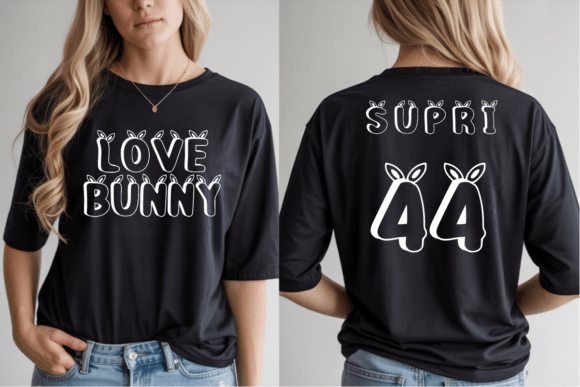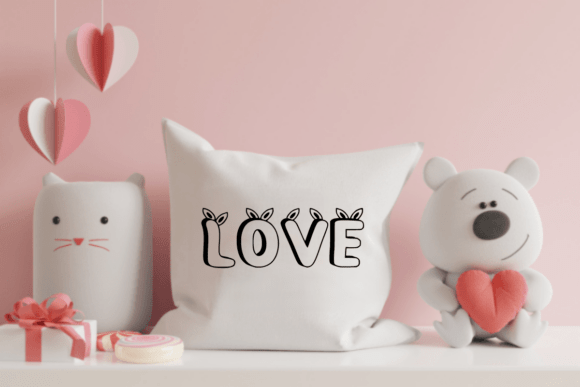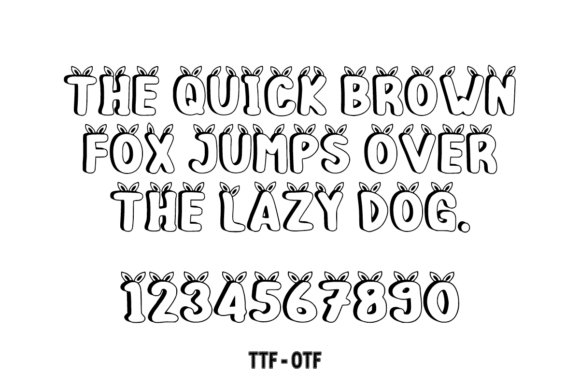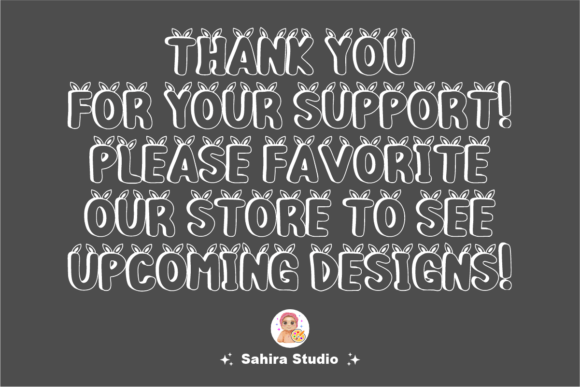
Hop into Creativity with Baby Bunny – The Cutest Font for Little Ones! 🐰🌷
Are you ready to infuse your designs with a dose of cuteness and whimsy? Look no further than Baby Bunny, a charming decorative font that’s sure to bring a smile to every face. This delightful font is perfect for Easter-themed projects, nursery decor, and playful kids’ branding, making it an essential addition to your design toolkit.
What Makes Baby Bunny So Special?
Baby Bunny combines a bouncy, handwritten feel with a whimsical aesthetic that’s sure to captivate your audience. The font features soft, rounded characters topped with adorable tiny bunny ears, adding a touch of “hoppy” magic to your designs. Whether you’re creating personalized Easter baskets, cute nursery wall art, or school event flyers, Baby Bunny is the ultimate choice for designers and crafters looking to add a dash of personality to their work.
Why Baby Bunny is a Must-Have for Designers and Crafters
So, what sets Baby Bunny apart from other fonts? Here are just a few reasons why this font is a must-have for designers and crafters:
- Unique Bunny Ear Detail: Every letter is uniquely adorned with cute ears, making it perfect for seasonal Easter designs and adding a touch of whimsy to your projects.
- Child-Friendly Aesthetic: Soft, thick, and rounded shapes that feel warm, safe, and inviting, making it ideal for nursery decor, kids’ branding, and school projects.
- Optimized for Crafters: The clean outlines are meticulously designed, making it easy to use and versatile for various crafting and design applications.
Perfect for Easter-Themed Projects
Easter is just around the corner, and Baby Bunny is the perfect font to help you create adorable Easter-themed projects. From personalized Easter baskets to cute Easter egg designs, this font adds a touch of springtime magic to your creations. Imagine creating Easter-themed party invitations, decorations, or even social media graphics that feature this delightful font – it’s sure to delight both kids and adults alike!
Nursery Decor and Kids’ Branding Made Easy
Baby Bunny is not just limited to Easter-themed projects; it’s also perfect for nursery decor and kids’ branding. The font’s child-friendly aesthetic and whimsical feel make it an excellent choice for designing nursery wall art, kids’ party invitations, and even branding materials for kids’ businesses. With Baby Bunny, you can create designs that are both fun and engaging, perfect for little ones.
Tips for Using Baby Bunny in Your Designs
Here are some tips for using Baby Bunny in your designs:
- Pair with Pastel Colors: Combine Baby Bunny with soft pastel colors to create a sweet and delicate look that’s perfect for Easter-themed projects and nursery decor.
- Add Whimsical Elements: Add whimsical elements like flowers, clouds, or Easter eggs to enhance the playful feel of the font.
- Experiment with Sizes: Experiment with different font sizes to create visual interest and add emphasis to specific design elements.
Get Ready to Hop into Creativity!
In conclusion, Baby Bunny is more than just a font – it’s an invitation to play! With its unique bunny ear details, child-friendly aesthetic, and optimized design, this font is perfect for designers and crafters looking to add a dash of personality to their work. So, hop into creativity with Baby Bunny and make your designs stand out with a touch of “hoppy” magic!